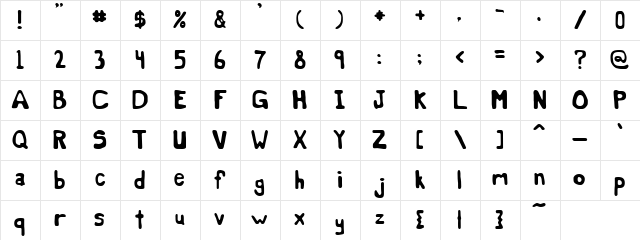
Dagar The Great Regular Free Font
Dagar The Great Regular
Design Context for Dagar The Great
Dagar The Great is a composed and adaptable typeface that performs quietly and consistently across a wide range of design contexts.
Pro Tip: Use Dagar The Great in both headline and body roles to test its range before committing to a single application.